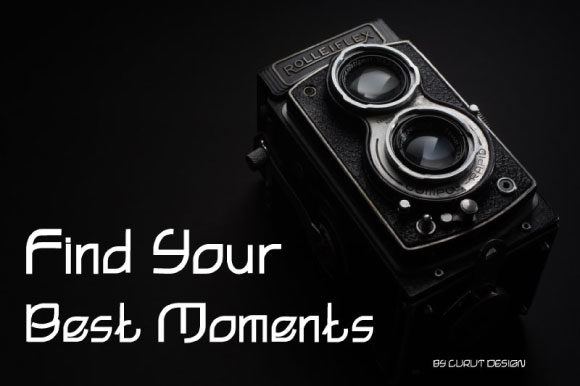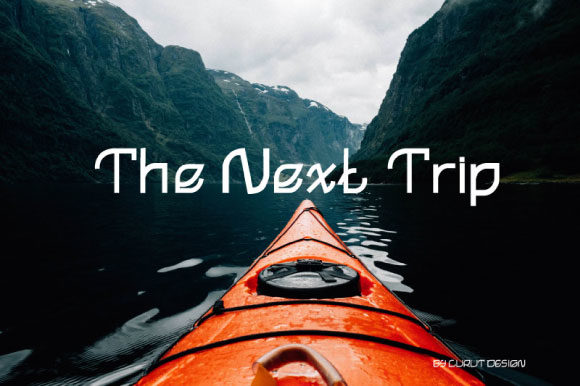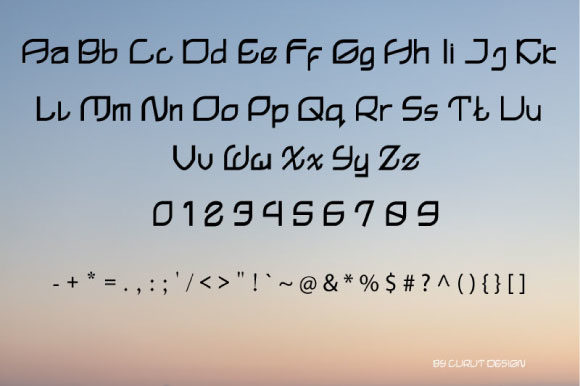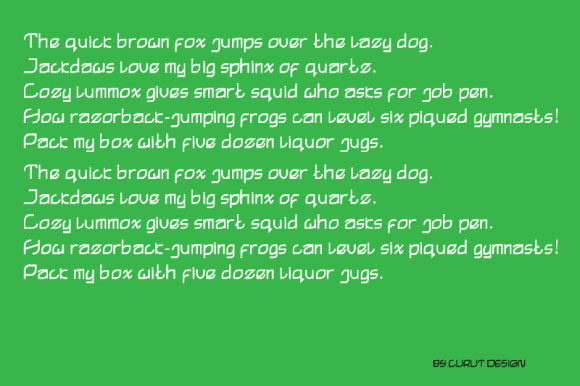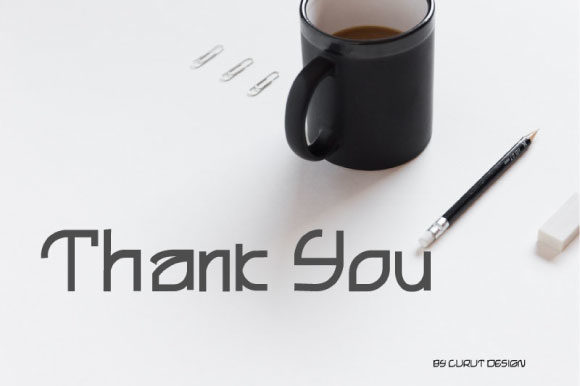
Introducing Creative Line Font: A Bold and Elegant Display Font
Are you tired of using the same old fonts in your designs? Look no further than Creative Line Font, a simple yet elegant display font that’s sure to take your work to the next level. With its bold vibe and experimental approach to classic design, Creative Line Font is the perfect choice for designers and crafters looking to add a touch of sophistication to their projects.
The Inspiration Behind Creative Line Font
Creative Line Font is a unique and creative take on traditional typography. Its design is inspired by the classic fonts of the past, but with a modern twist. The font’s bold lines and elegant curves make it perfect for use in a variety of design applications, from logos and branding to posters and packaging.
Key Features of Creative Line Font
- Simple yet Elegant Design: Creative Line Font has a clean and simple design that’s both elegant and sophisticated.
- Bold Vibe: The font’s bold lines and curves give it a confident and eye-catching vibe that’s sure to grab attention.
- Experimental Approach: Creative Line Font takes a fresh and experimental approach to classic design, making it perfect for designers looking to try something new.
- Highly Versatile: The font is highly versatile and can be used in a variety of design applications, from digital to print.
Uses for Creative Line Font
- Logos and Branding: Use Creative Line Font to create a bold and eye-catching logo that’s sure to stand out.
- Posters and Flyers: The font’s bold lines and elegant curves make it perfect for use in posters and flyers.
- Packaging Design: Add a touch of sophistication to your packaging design with Creative Line Font.
- Digital Design: The font is highly legible on digital devices, making it perfect for use in website headers, social media graphics, and more.
Tips for Using Creative Line Font
- Use it as a Headline Font: Creative Line Font is perfect for use as a headline font, where its bold lines and elegant curves can really make an impact.
- Experiment with Different Colors: The font looks great in a variety of colors, so don’t be afraid to experiment and find the perfect hue for your design.
- Pair it with Other Fonts: Creative Line Font pairs well with a variety of other fonts, so feel free to get creative and try out different combinations.